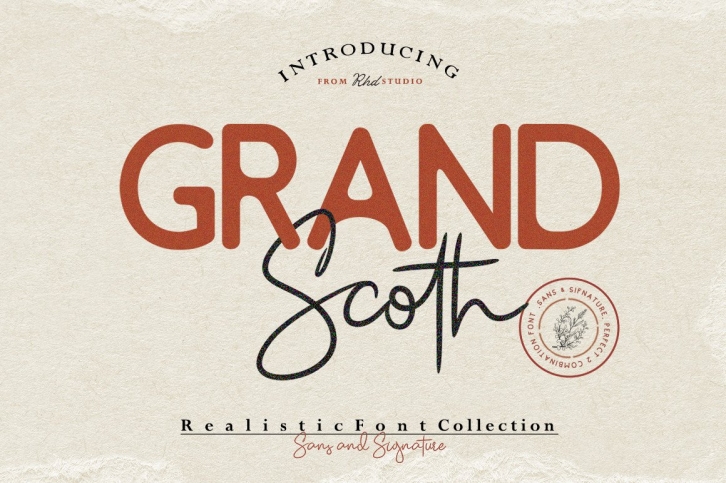
Grand Scoth is the perfect and essential combination of two fonts: a round sans and an authentic signature typeface. Fall in love with its incredibly distinct and timeless style and use it to create spectacular designs!